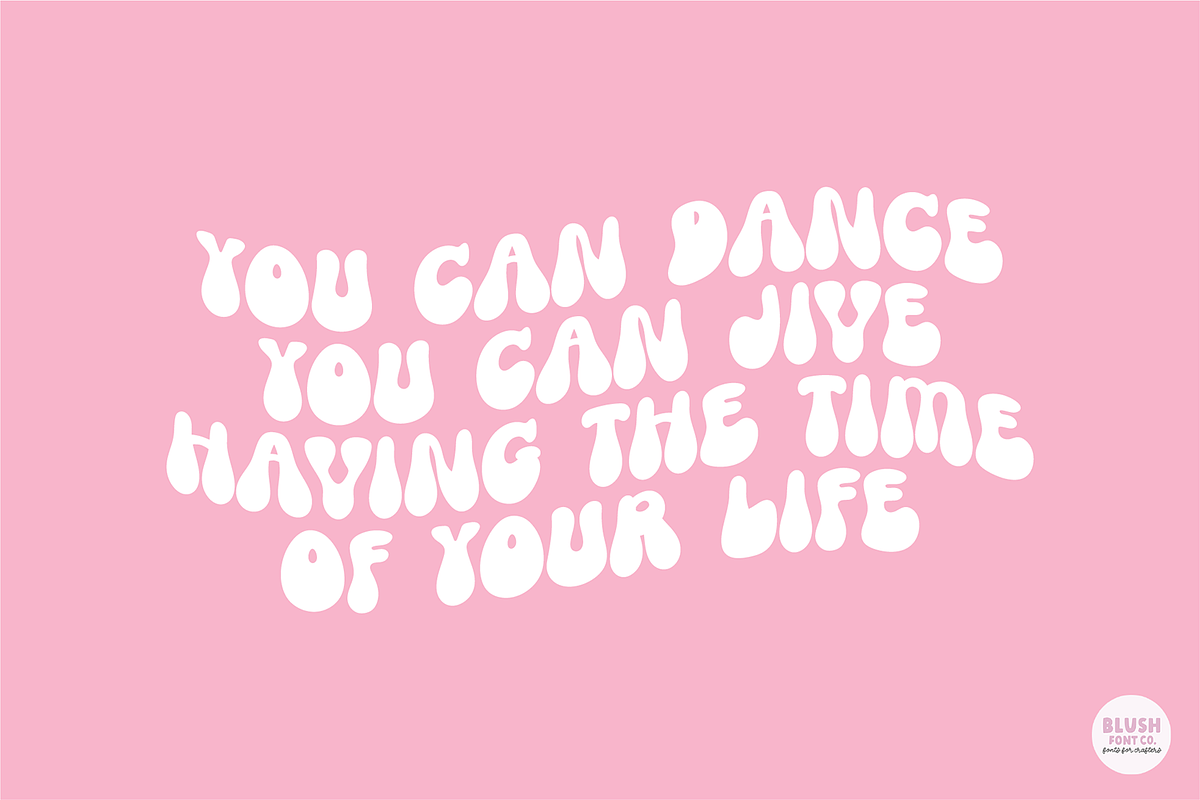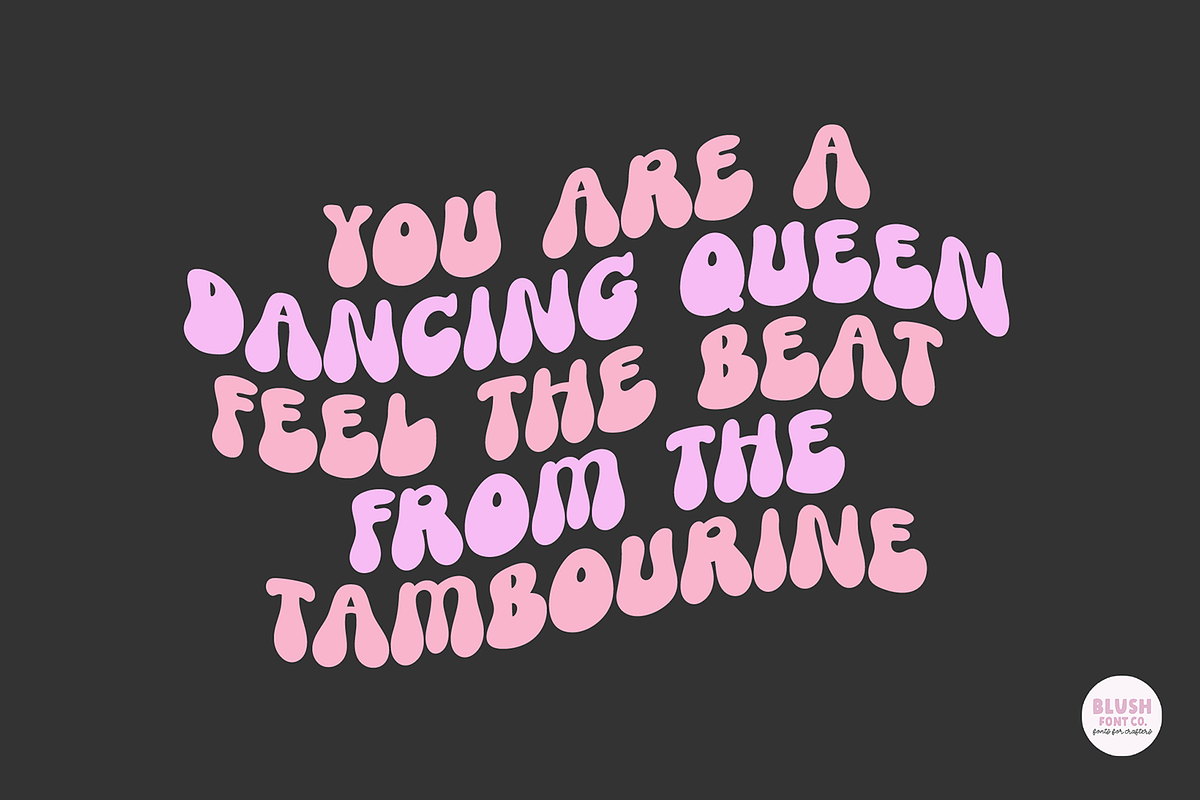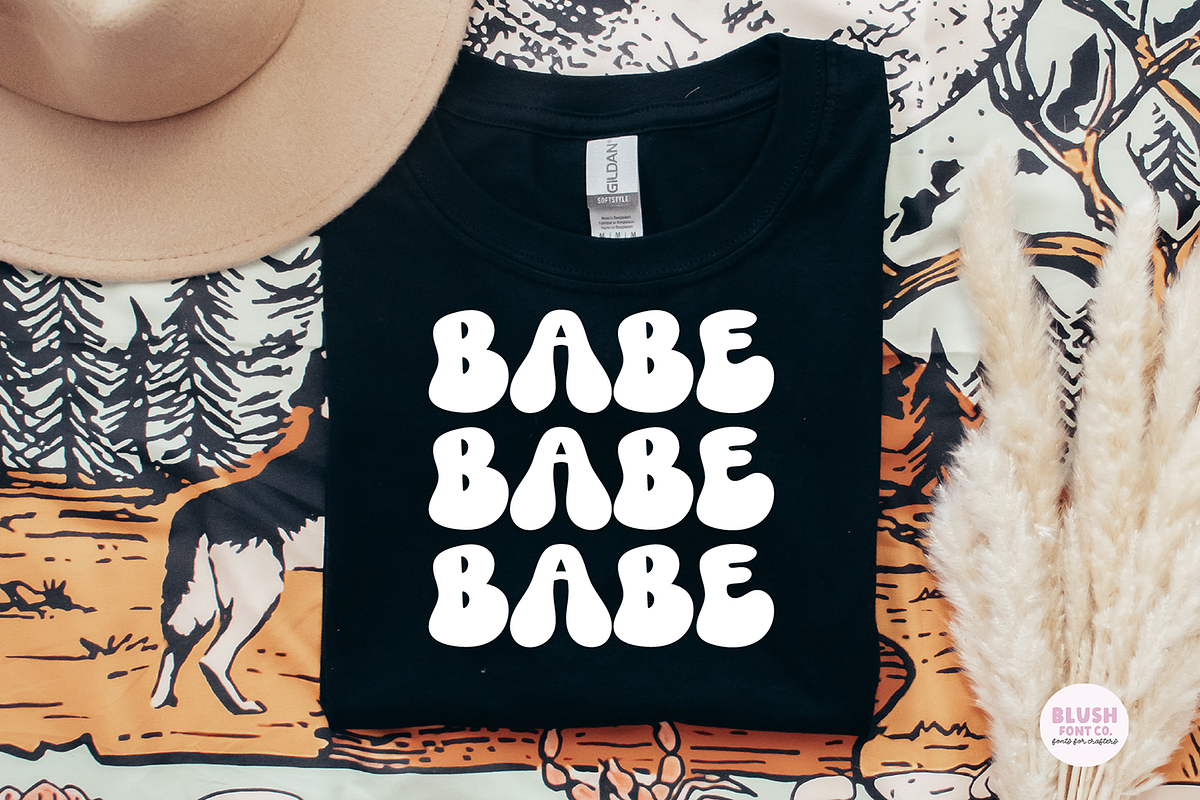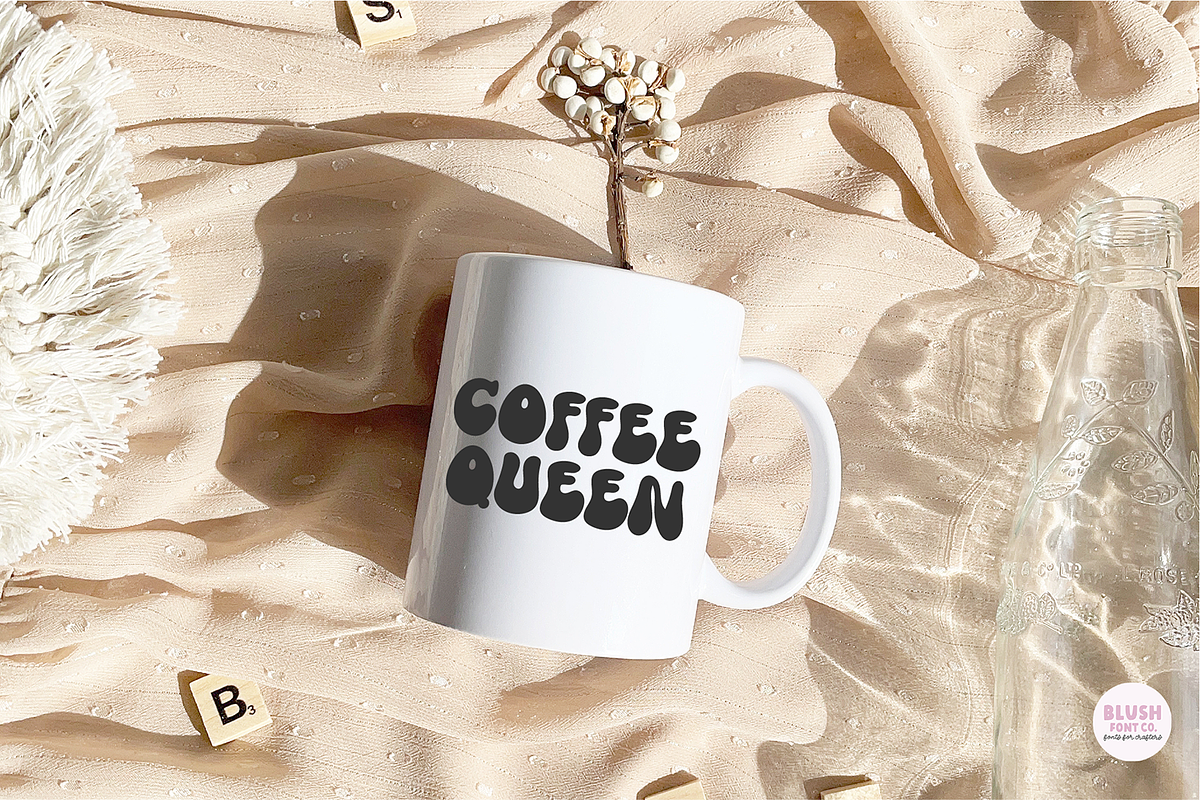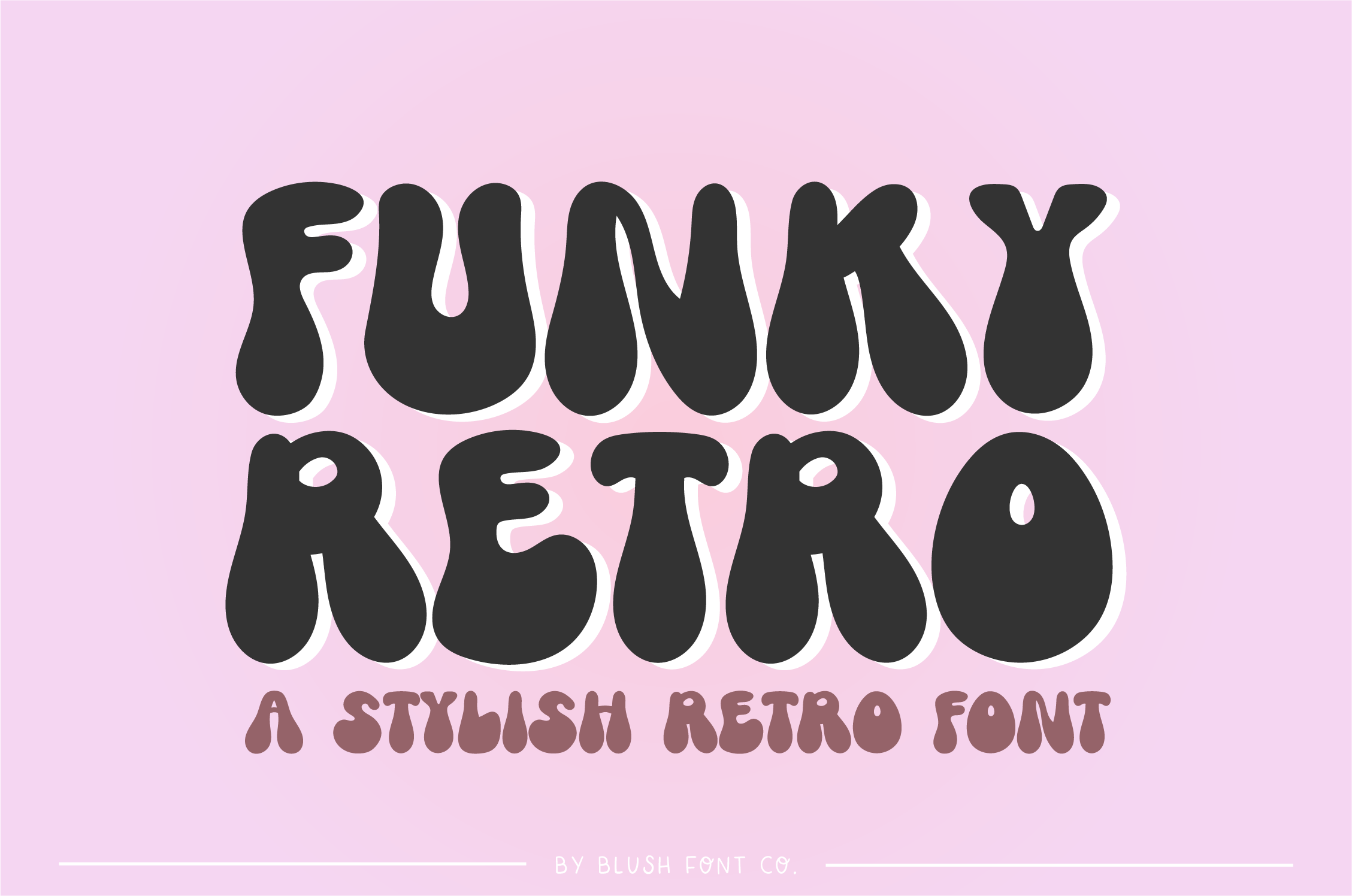
FUNKY RETRO Boho Bubble Font
Funky Retro is a bold and bubbly retro font.
This font is a trendy display font that is perfect for social media or crafty projects. Use it for branding, crafts for decor, t-shirts, and more! This font includes all caps glyphs, numbers, and basic punctuation marks.